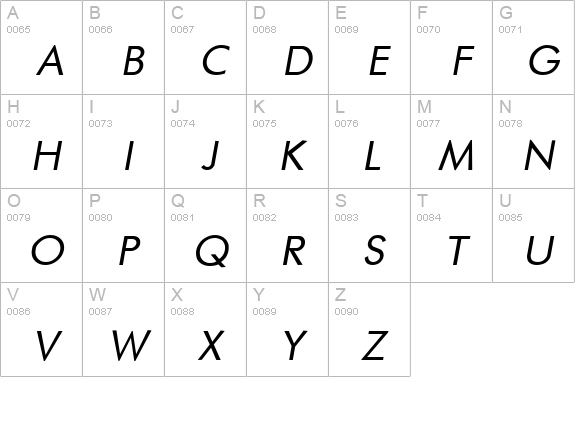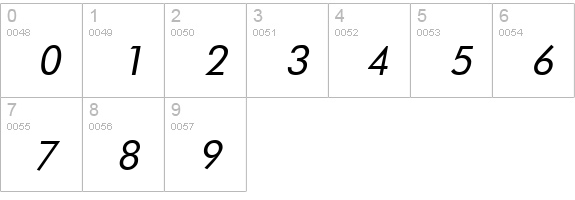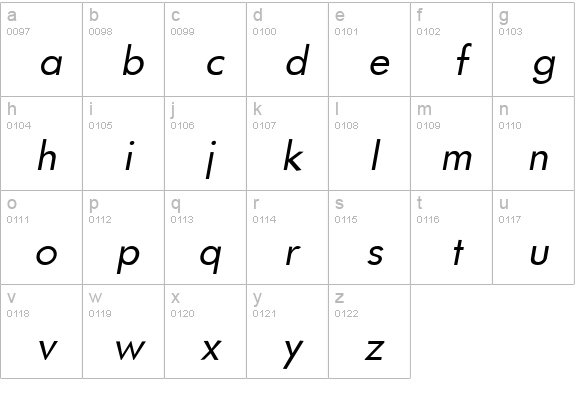
Futurist Fixed-width Italic is a distinctive, italic variant in the Futurist typeface family \xE2\x80\x94 well suited to design and typography projects.
Introducing Futurist Fixed-width Italic font, a sleek and modern typeface designed for the forward-thinking individual. Its futuristic design elements and unique italic style make it perfect for adding a touch of sophistication to your projects. Whether you're working on a website, poster, or branding, this font will help you stand out from the crowd. What's even better is that Futurist Fixed-width Italic font is available for free download at FontsMarket.com. You can easily access this stylish and versatile font to elevate your designs and make a lasting impression. Don't miss out on the opportunity to enhance your projects with this cutting-edge typeface. Download Futurist Fixed-width Italic font today and let your creativity soar!